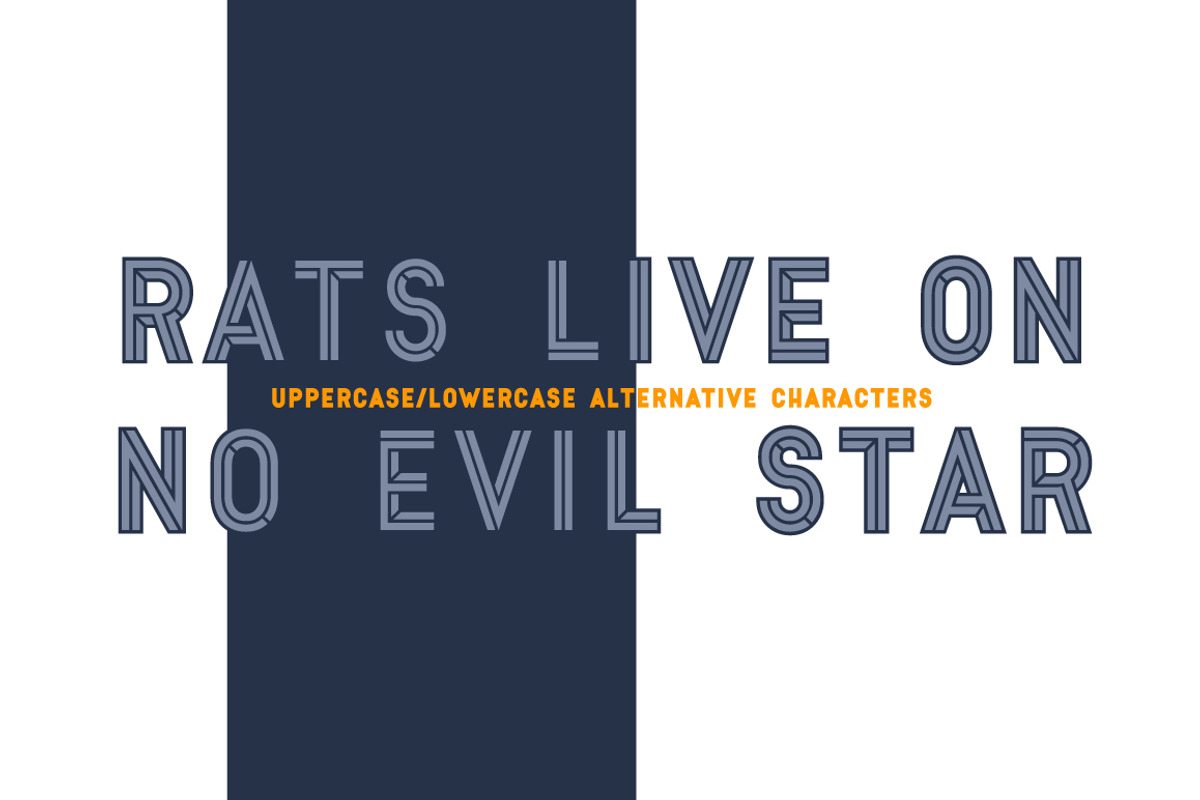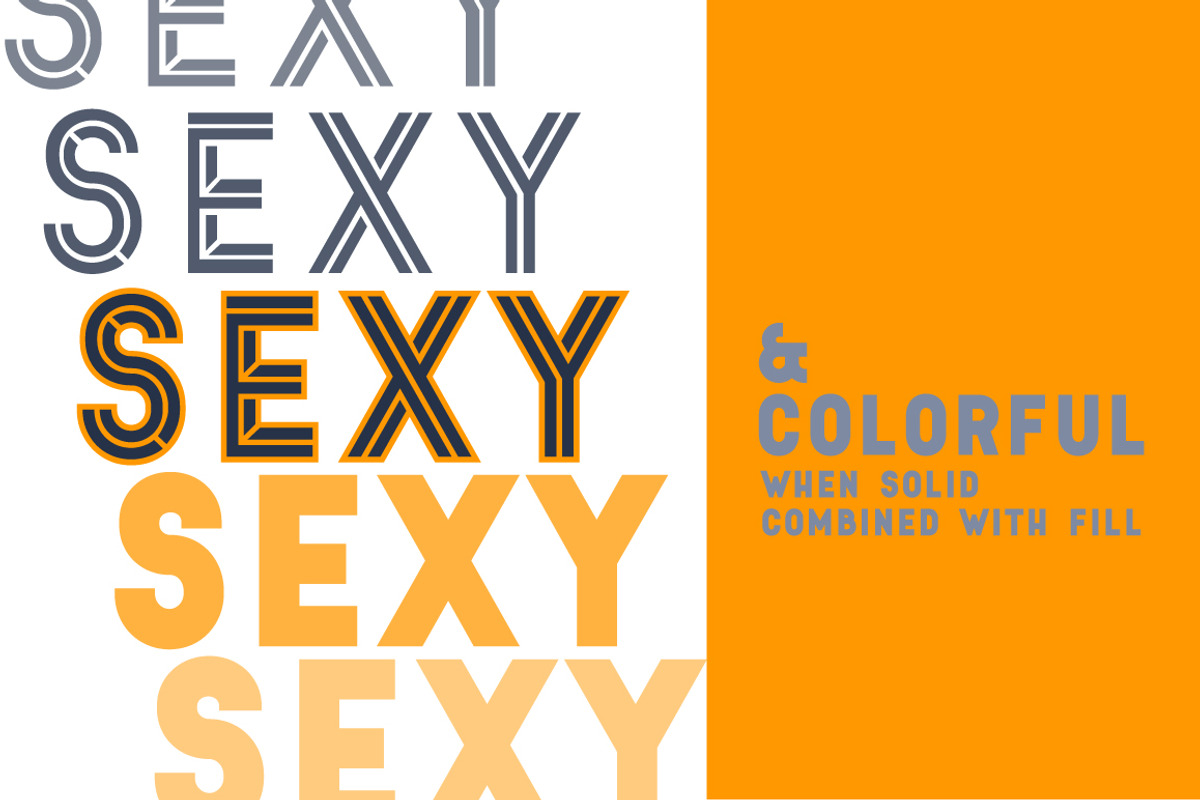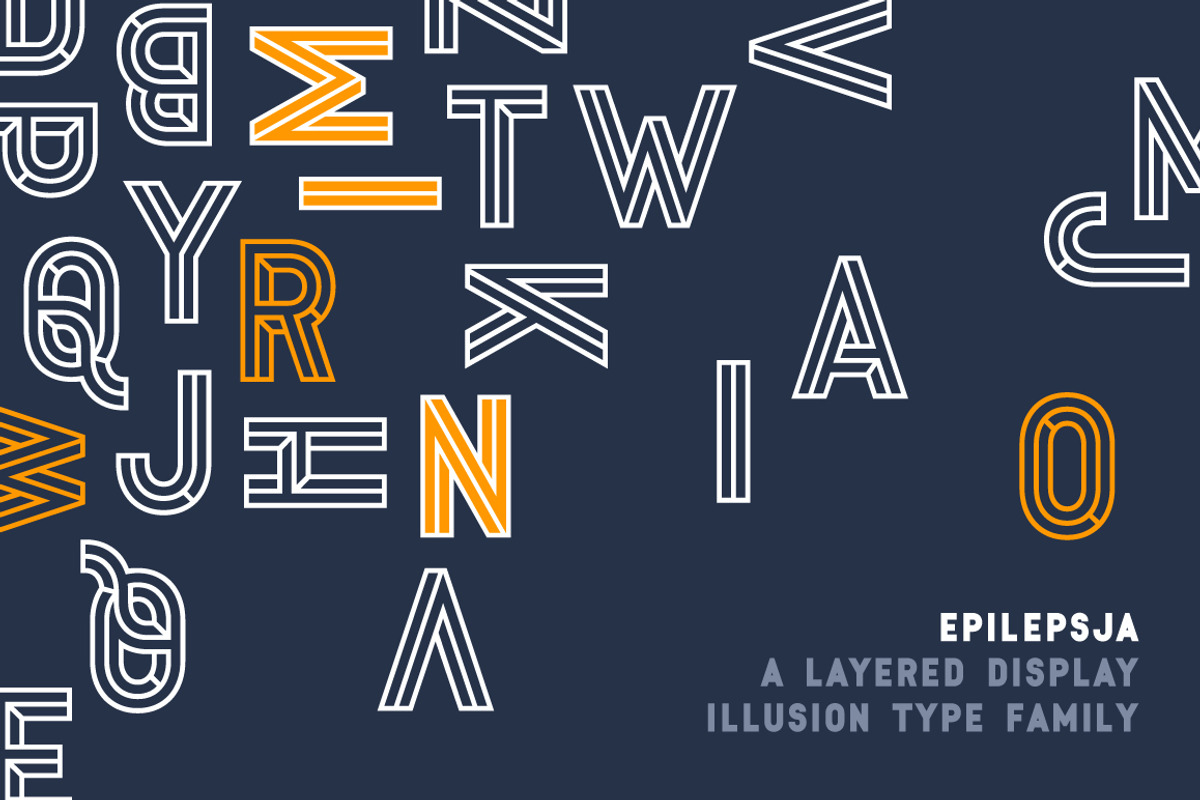
Epilepsja Solid
Epilepsja Solid by FONT-Bud is a font selected for branding, posters, packaging, typography.
- There are alternative uppercase/lowercase characters, digits, diacritics of western, central and southeastern Europe and Africa, punctation
Epilepsja Solid by FONT-Bud fits naturally into Branding, posters, packaging, typography.